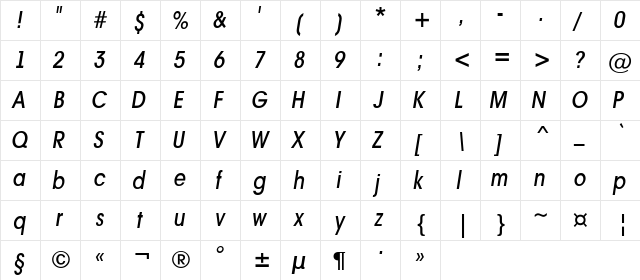
a_AvanteNrMedium Italic
Design Context for a_AvanteNrMedium Typeface
a_AvanteNrMedium is a composed and adaptable typeface that performs quietly and consistently across a wide range of design contexts. The dynamic lean of this cut emphasises speed and emphasis in any layout.
Pro Tip: Use a_AvanteNrMedium for emphasis, pull quotes, and subheadings where its slanted energy can add rhythm to the layout.